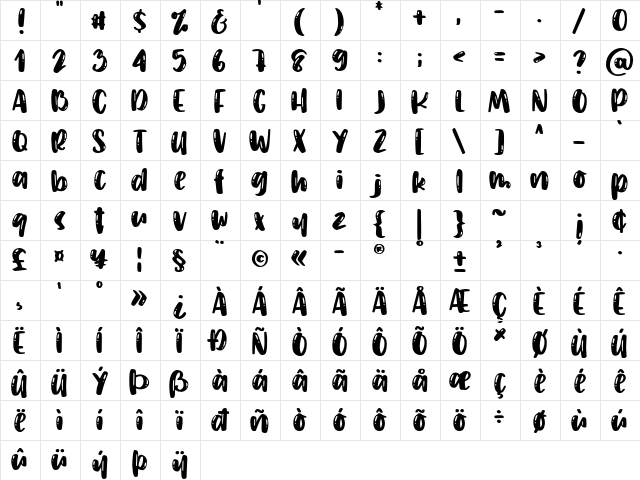
Humble boys demo Regular Free Font
Humble boys demo Regular
Designer: Abo Daniel 2020
Design Context for Humble boys demo
Humble boys demo is a composed and adaptable typeface that performs quietly and consistently across a wide range of design contexts.